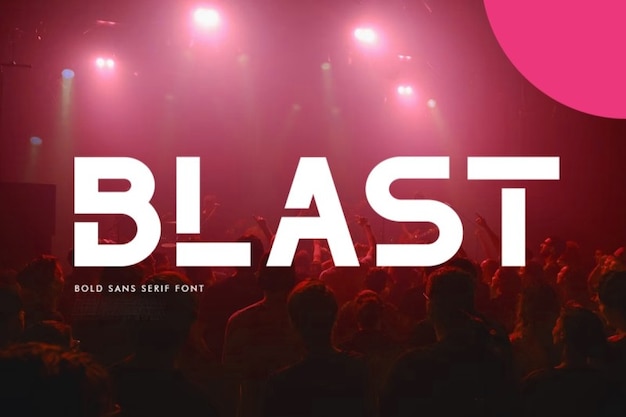
Blast is a wide futuristic font that comes loaded with alternate letters with a mix of sharp and rounded corners. Use this unique typeface for labels, posters, logos, books, packaging, games, and more. Download it now!
Blast (400)